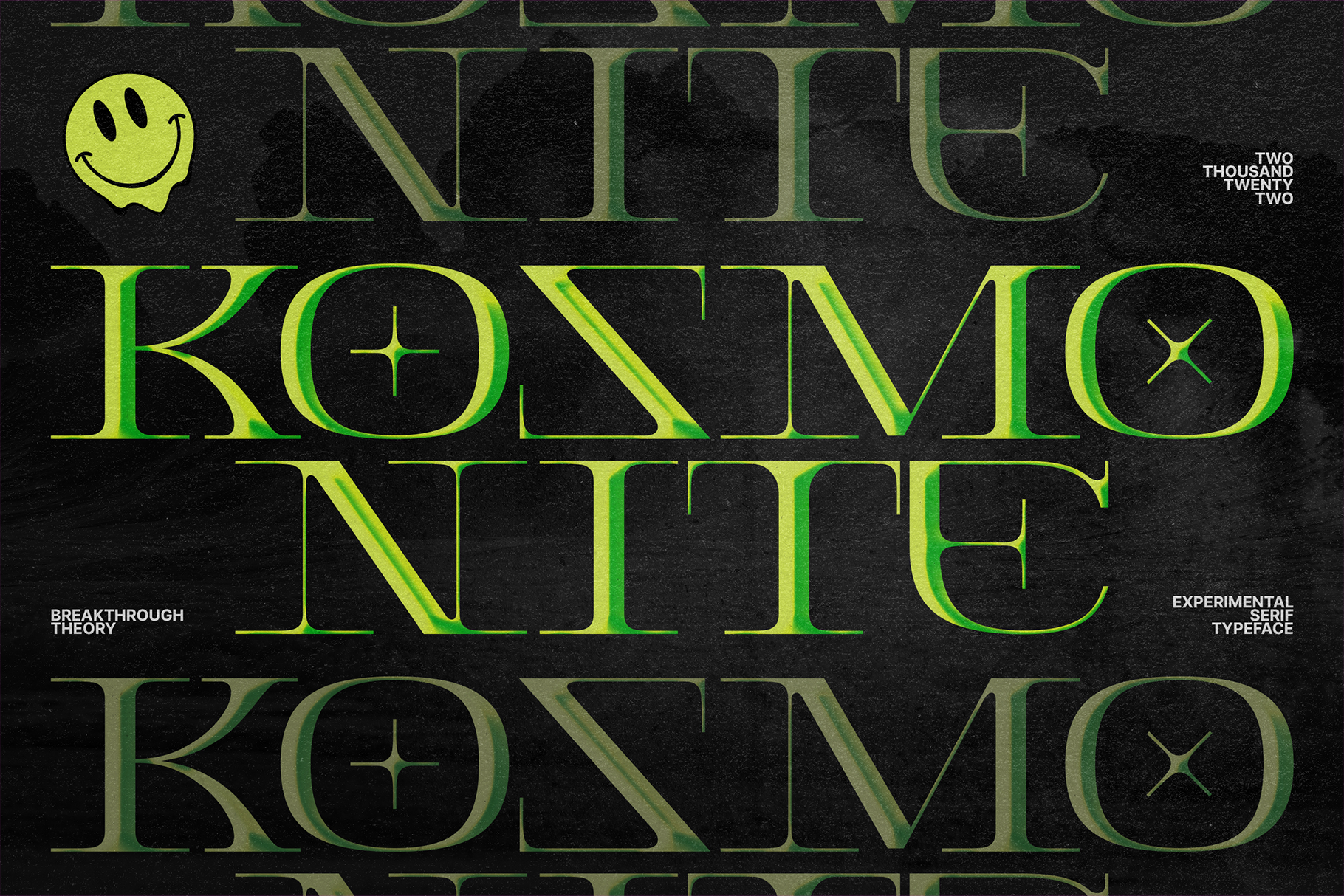
Kosmonite - Experimental Serif Fonts
Step up your visual game with Kosmonite, an experimental serif typeface with a wide body but maintaining the elegant vibes of the serif soul.